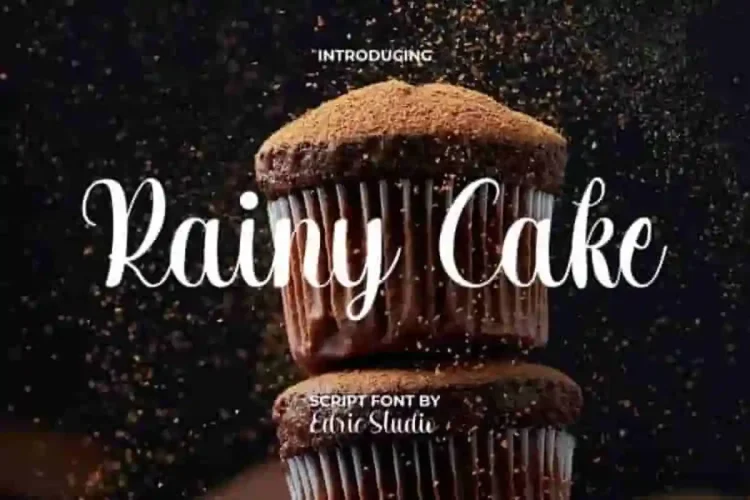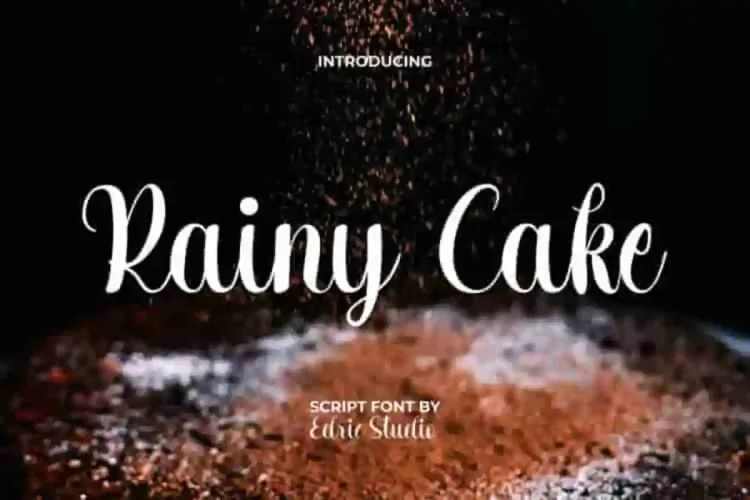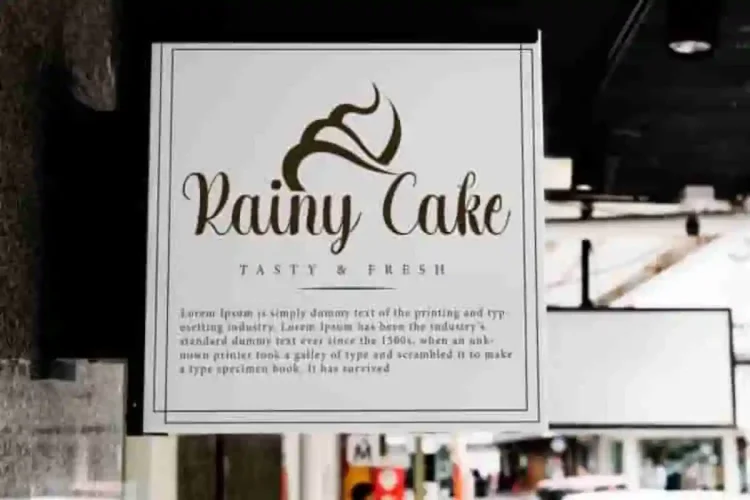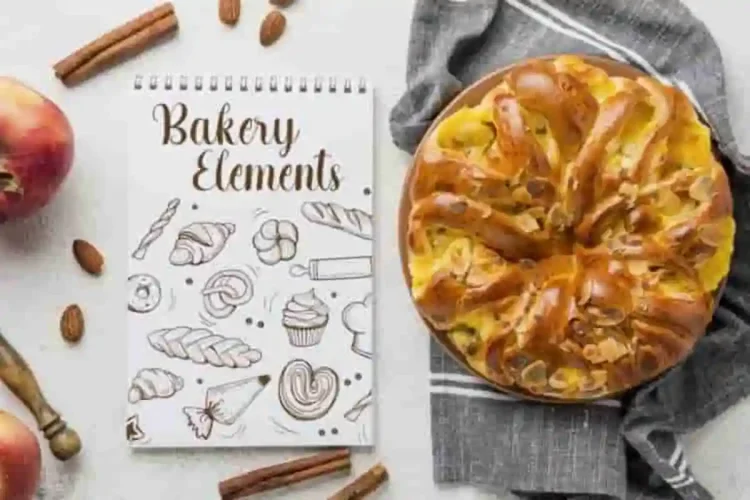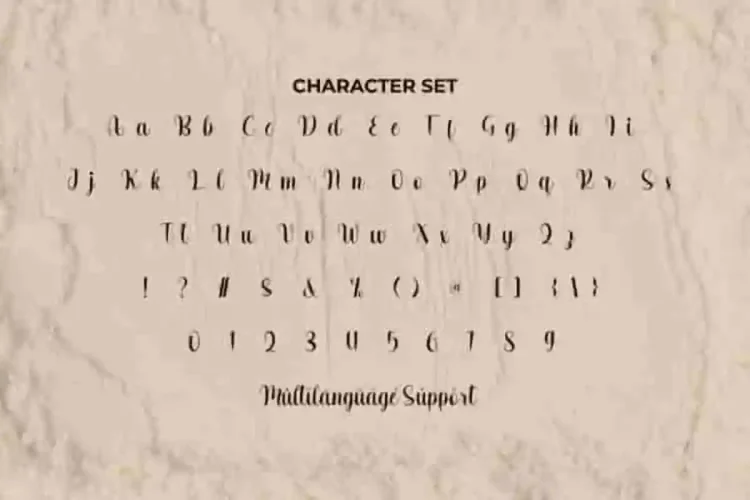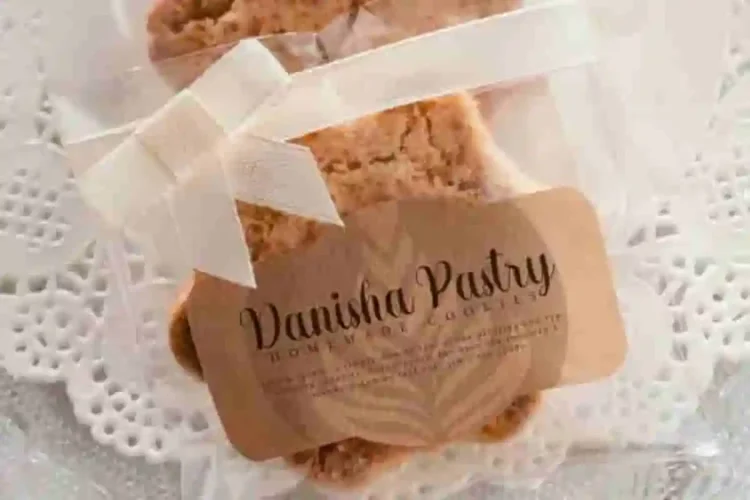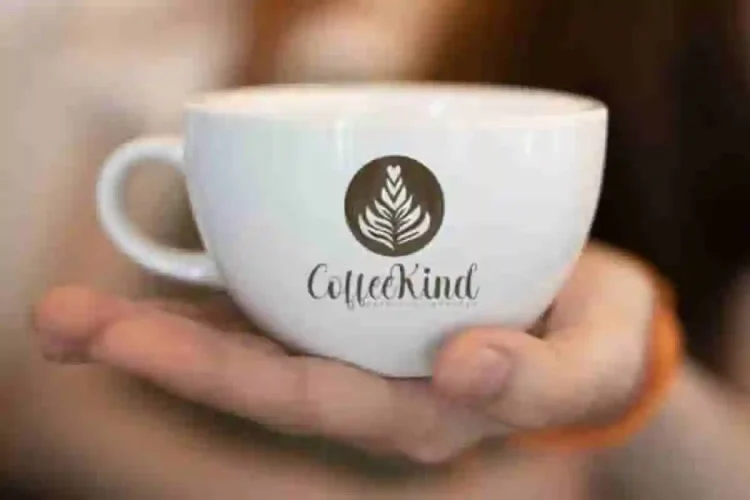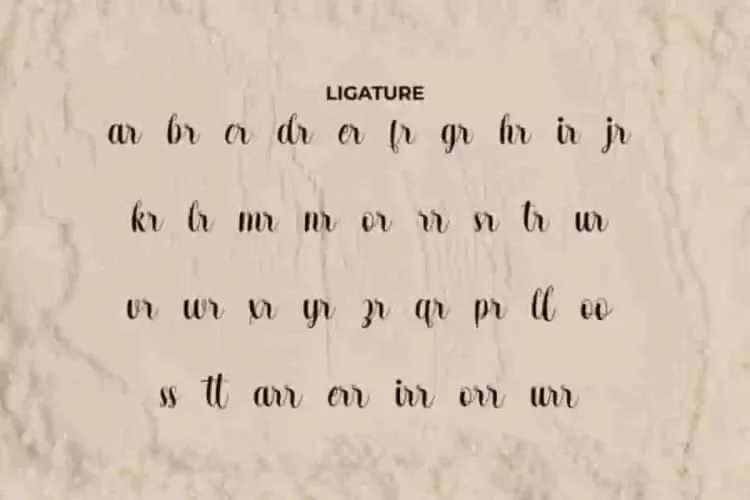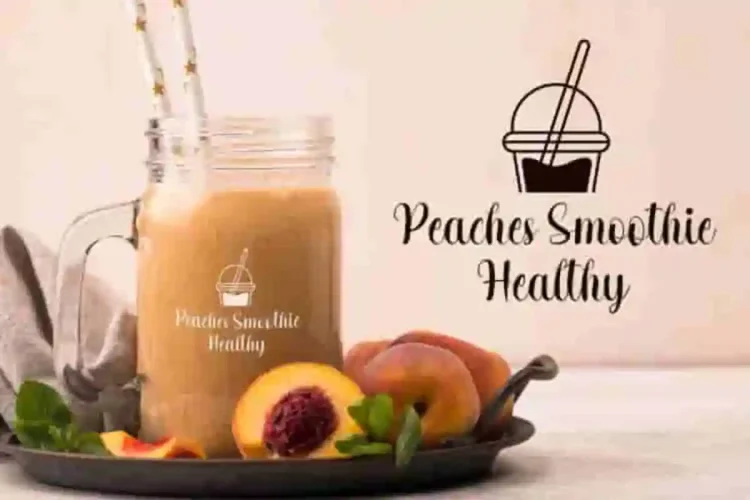
Rainy Cake Script Font a delightful script typeface inspired by the joy of baking cakes. Carefully crafted by EdricStudio.
Rainy Cake Script Font comes with a full set of Uppercase and Lowercase Basic Characters, Number, a large range of Punctuation and Symbol. It has a stunning characters set, perfectly managed with well spaced and kerning. Rainy Cake Script Font will be great for any projects (with extended license) including : labels, menu, mockup design, signage, watermark, website, etc.
Rainy Cake Script Font is a playful typeface with unique decoration in each character. Ready to use both on Windows machine or Mac with simple installations. It’s tested to work well in the Adobe Apps (Illustrator, Adobe InDesign, Adobe Photoshop) even work on Microsoft Word. PUA Encode Characters means you can access all characters easily – Fully accessible without additional design software.